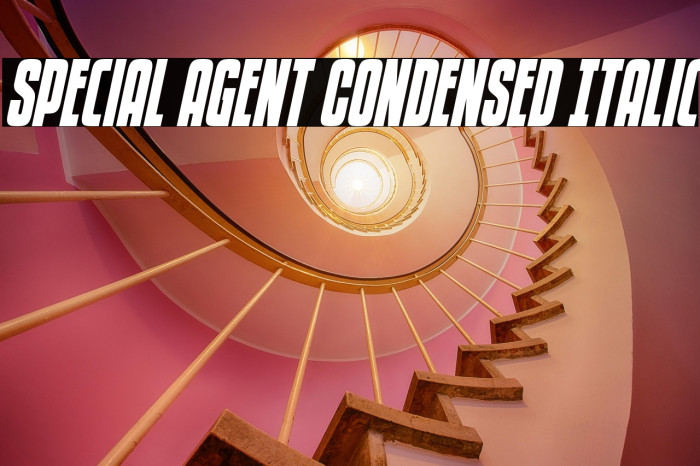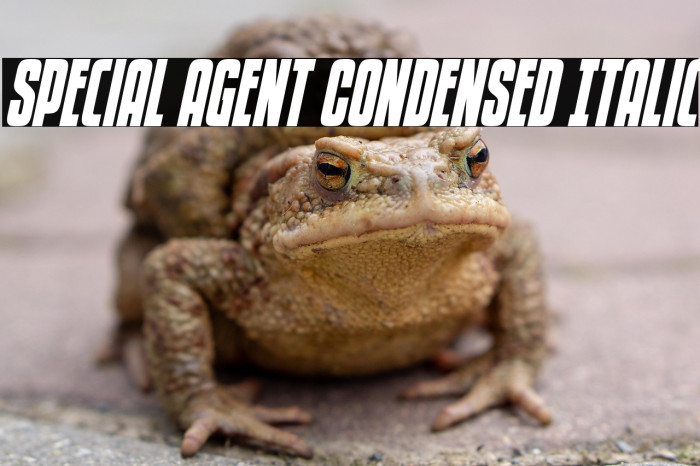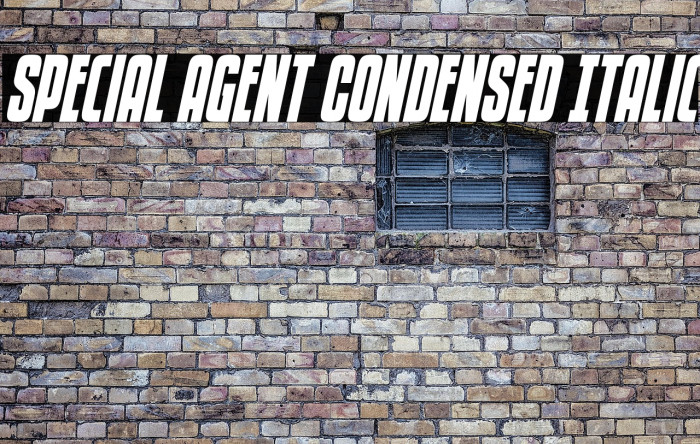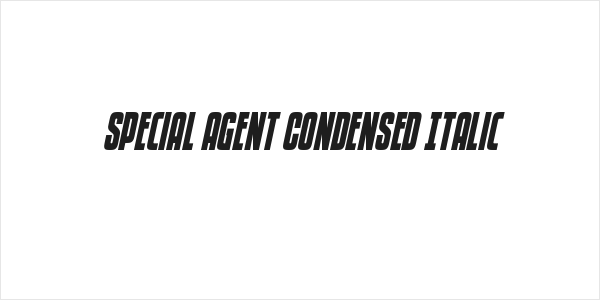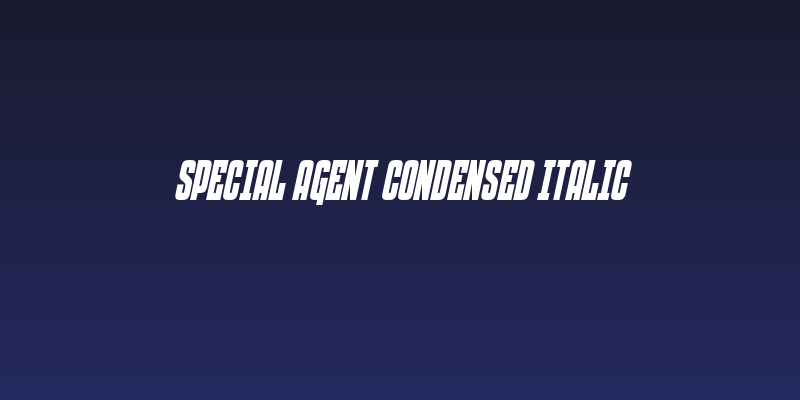
Special Agent Condensed Italic Font
Special Agent Condensed Italic Description
This font features a bold and dynamic design with a strong italic slant, giving it a sense of motion and urgency. The condensed letterforms enhance its compact appearance, making it ideal for impactful headlines and titles. The uppercase and lowercase letters maintain a consistent style, with sharp angles and clean lines that contribute to its modern and assertive look. The numerals and special characters are designed to match the overall aesthetic, ensuring uniformity across different text elements. This font is perfect for projects that require a bold statement and a contemporary feel.
| Proposed Projects | Ideal for use in action movie posters, sports branding, dynamic advertisements, and modern editorial design. |